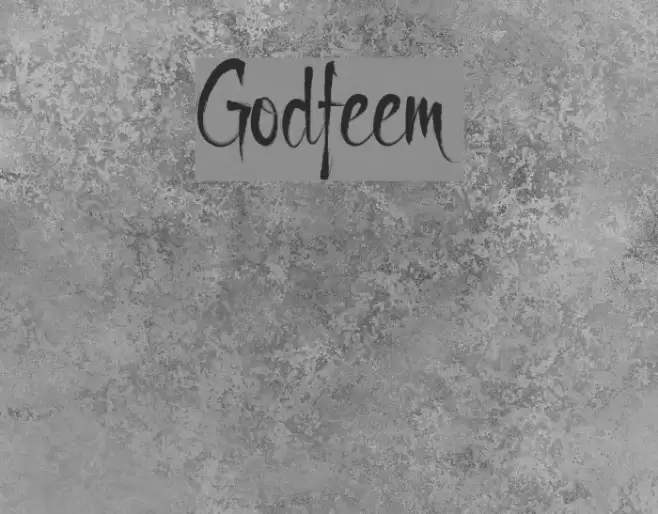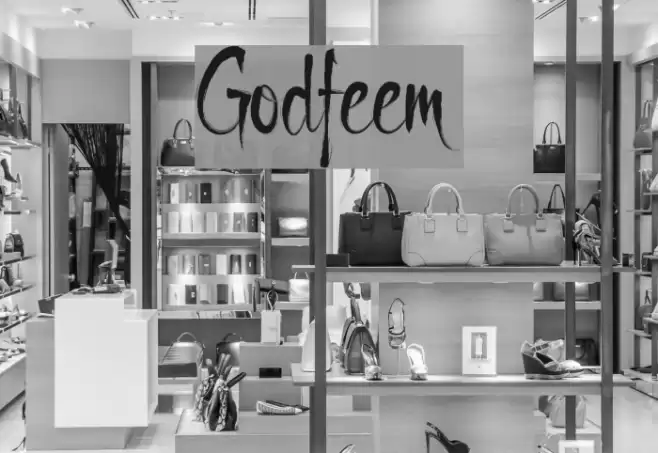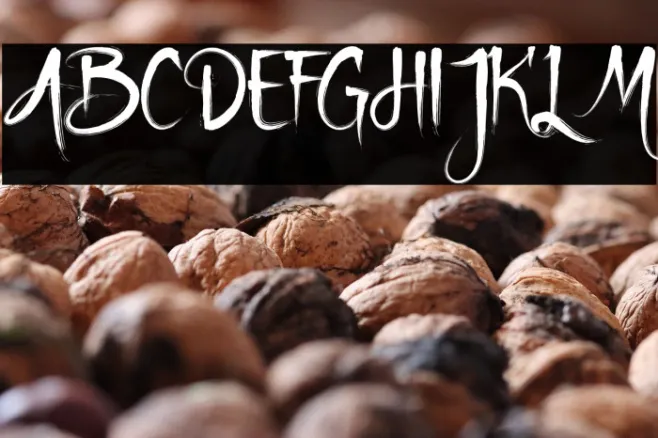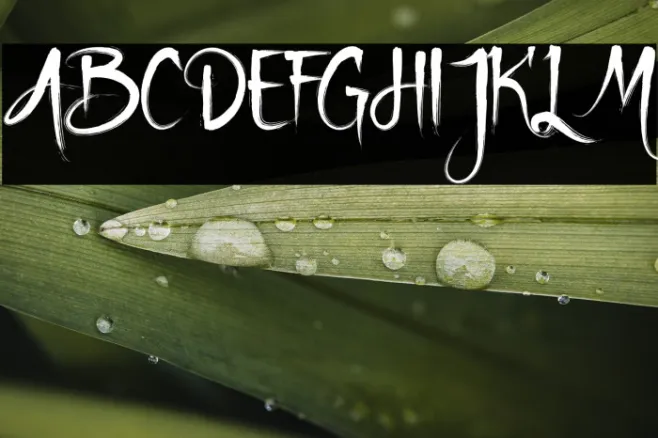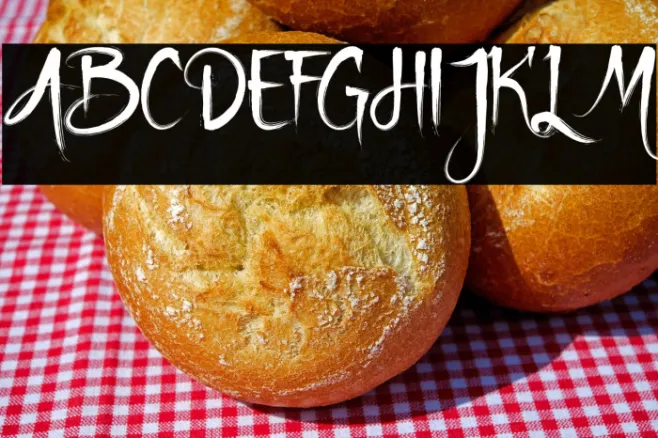
Godfeem Font
Godfeem Description
This font features a dynamic and expressive style, characterized by its brush-like strokes and fluid motion. The letters exhibit a sense of movement and energy, with varying thicknesses that create a lively and artistic appearance. The uppercase and lowercase letters maintain a consistent flow, while the numerals and special characters complement the overall aesthetic. The font's unique design makes it suitable for creative and artistic projects, where a touch of elegance and flair is desired.
A dynamic, brush-style font with expressive strokes and artistic flair from Script fonts.
- Proposed Projects: Ideal for branding, invitations, posters, and artistic projects that require a creative touch.
- Use Case: Logos, Headlines, Artistic projects